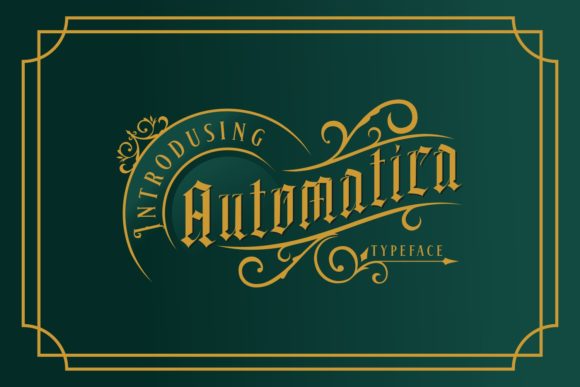
Embark on a typographic journey to the medieval era with Automatica, our captivating blackletter font. This font, meticulously crafted by the skilled hands of Lutfi - 7NTypes, exudes an aura of authenticity that will leave you awestruck.
Automatica isn't just a font; it's a gateway to a bygone era. Its intricate letterforms, reminiscent of ancient manuscripts, will add a touch of timeless elegance to your designs. Imagine your words adorned with the grandeur of medieval script, commanding attention and inciting a sense of wonder.
With Automatica, you possess the power to evoke emotions and create designs that resonate with the soul. Its bold strokes and sweeping curves dance across the page, captivating your audience with their enchanting allure. Unleash your creativity and craft designs that transport viewers to a realm of enchantment and mystery.
Automatica's versatility knows no bounds. Whether you're crafting logos, branding materials, invitations, posters, or social media graphics, this font seamlessly adapts to your vision. Its rustic charm lends itself to vintage-inspired designs, while its modern sensibility ensures it remains relevant in contemporary contexts.
Experience the magic of Automatica today and witness the transformation of your designs into works of art. Adorn your projects with the beauty of blackletter calligraphy and transport your audience to a world of wonder and intrigue. Let Automatica be your font of choice and embark on a creative adventure that will leave an everlasting impression.